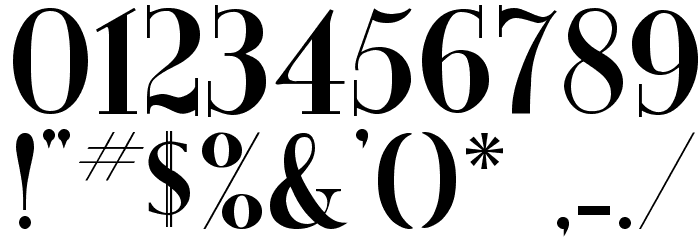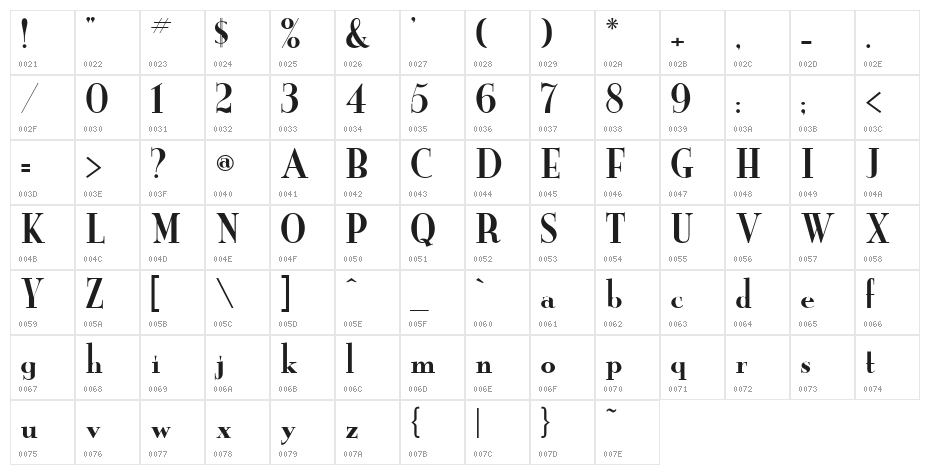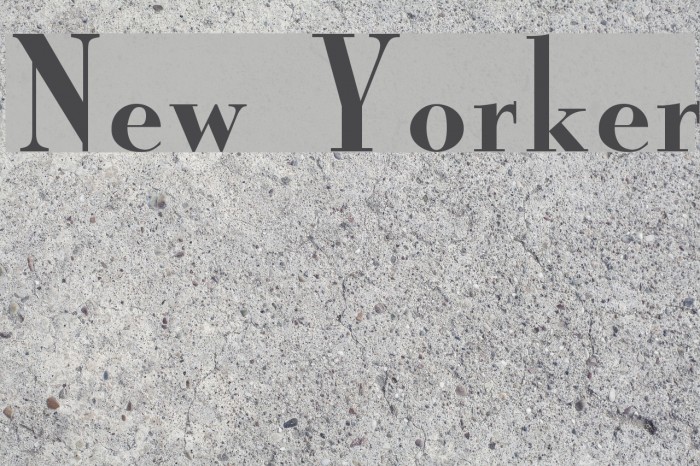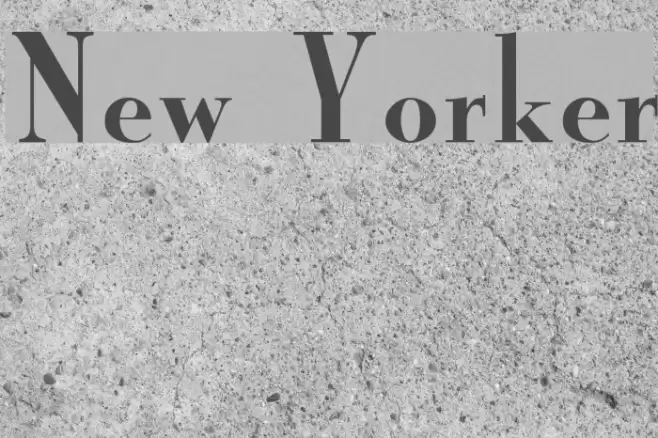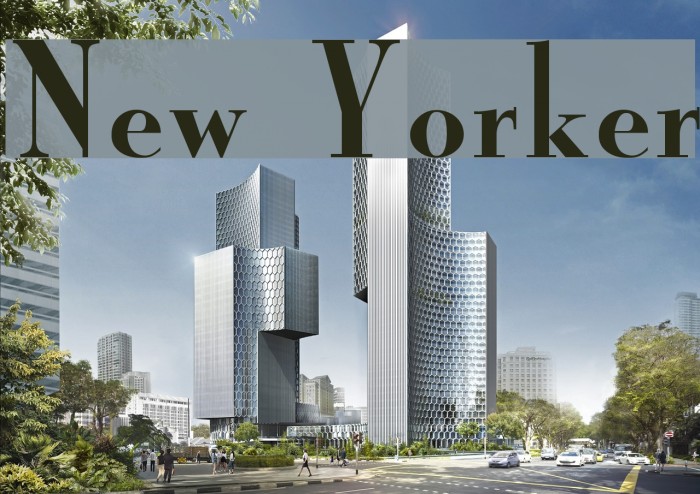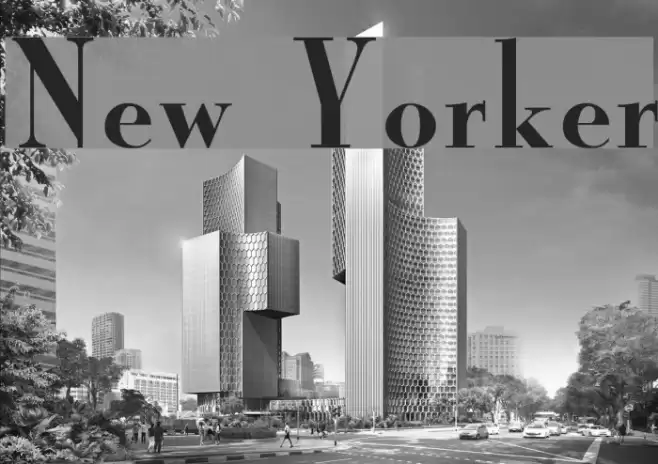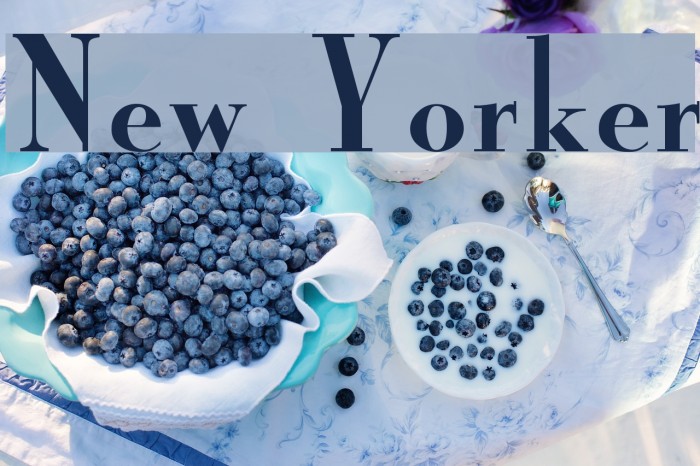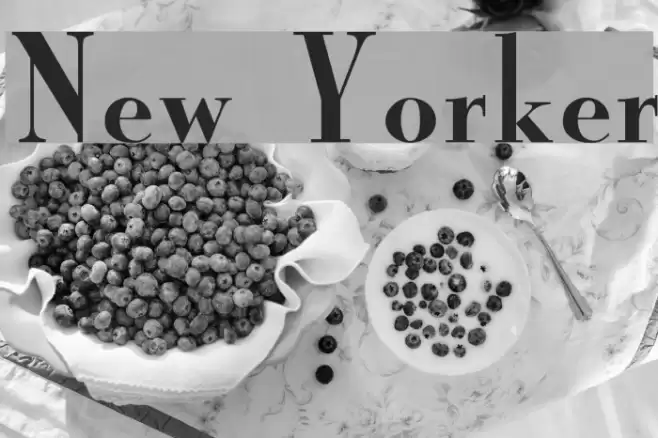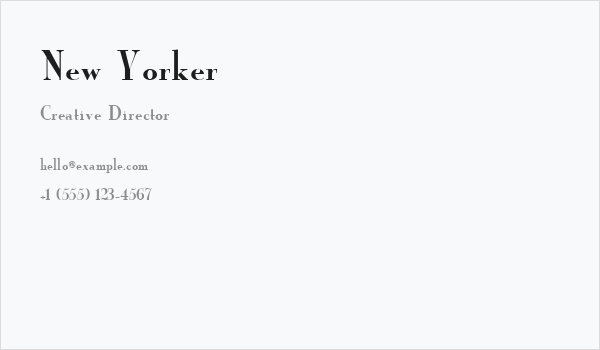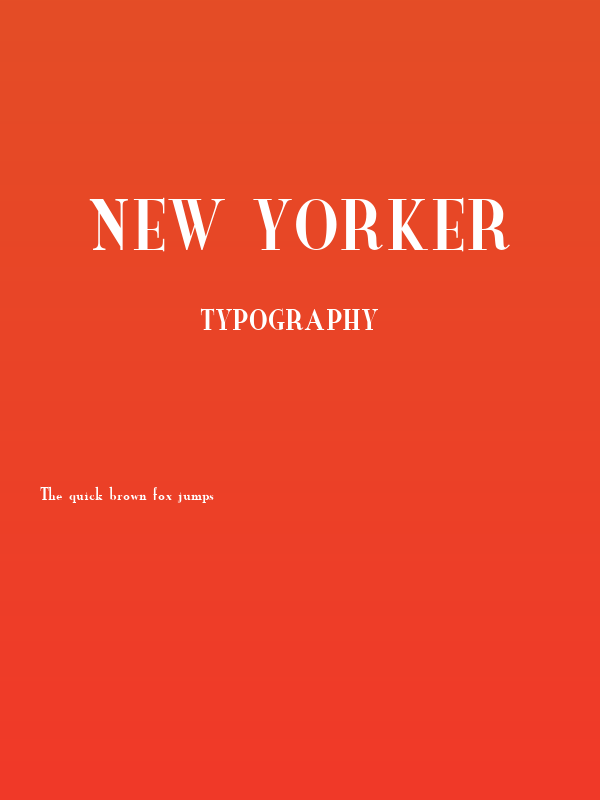
New Yorker Font
New Yorker Description
This font exudes a classic and sophisticated style, characterized by its high contrast between thick and thin strokes. The serifs are pronounced, adding a touch of elegance and formality. The uppercase letters are tall and commanding, while the lowercase letters maintain a consistent and harmonious flow. The numerals are distinct and easy to read, with a slight flair that complements the overall aesthetic. Special characters are well-integrated, maintaining the font's refined appearance. This typeface is ideal for projects that require a touch of class and tradition.
| Proposed Projects | Ideal for magazine headlines, book covers, formal invitations, and branding materials that require a sophisticated touch. |